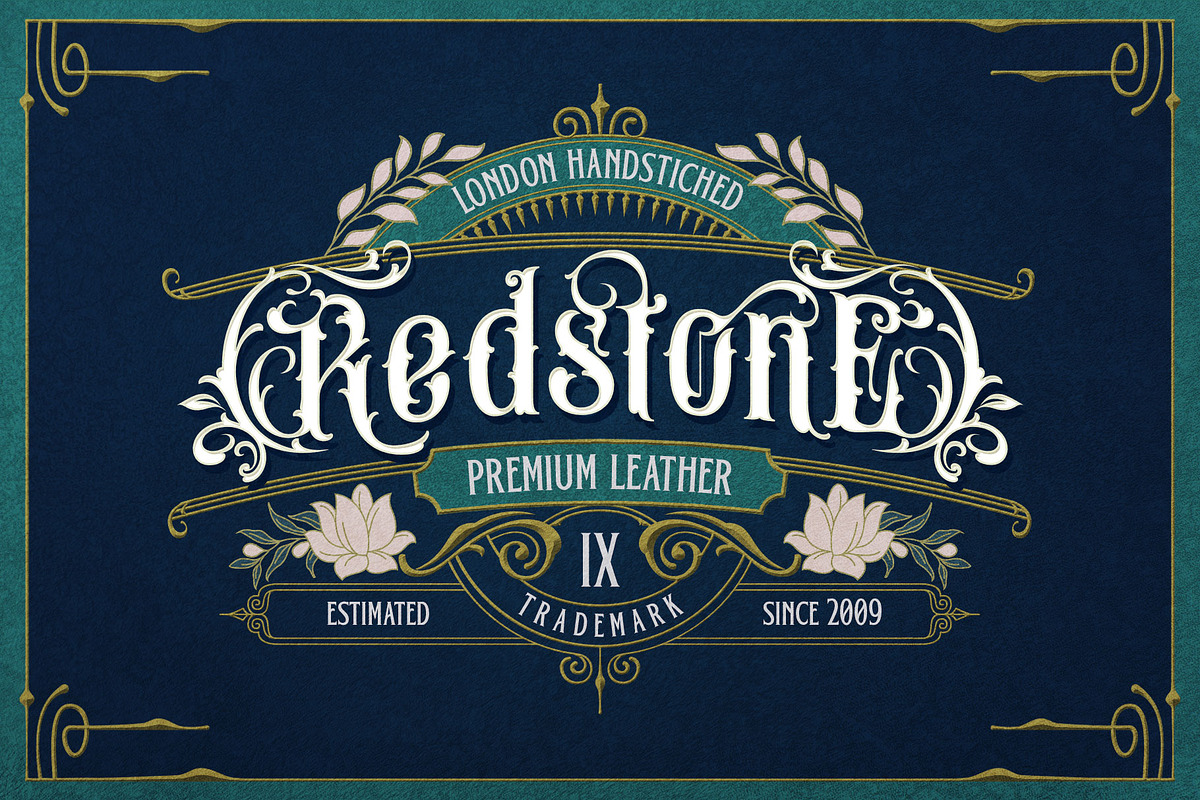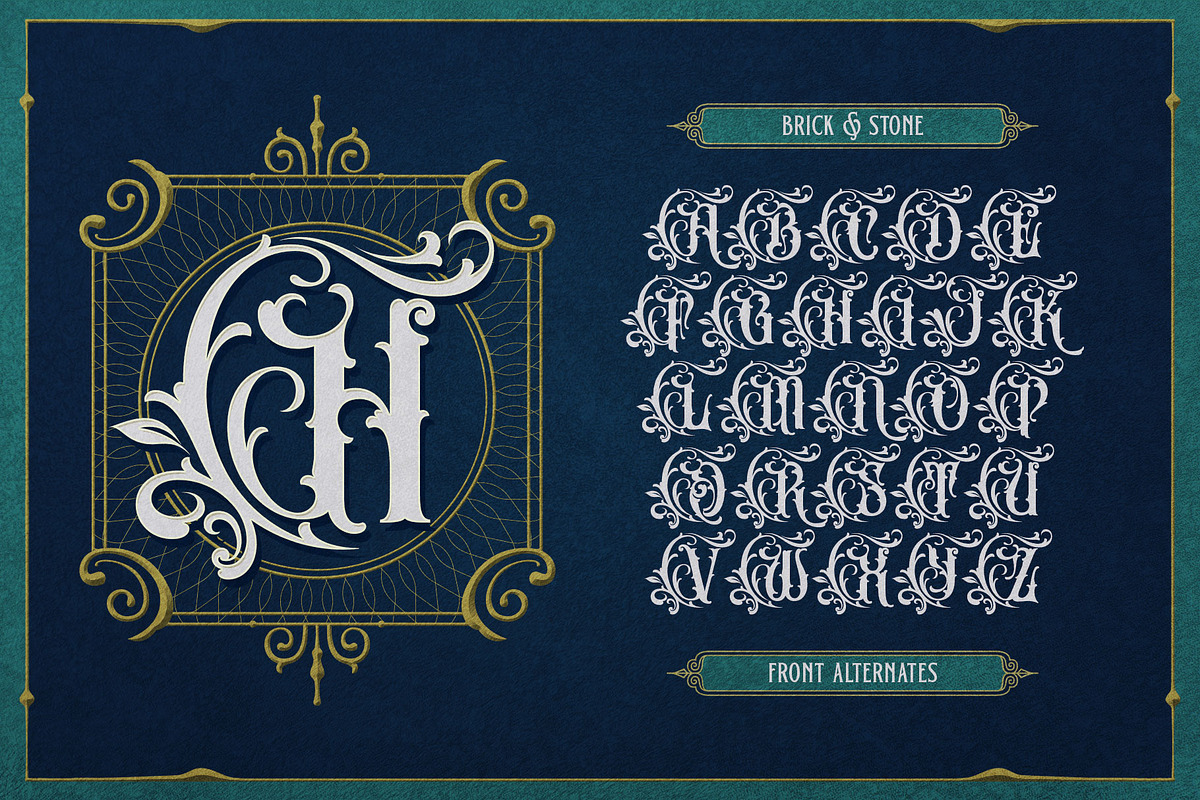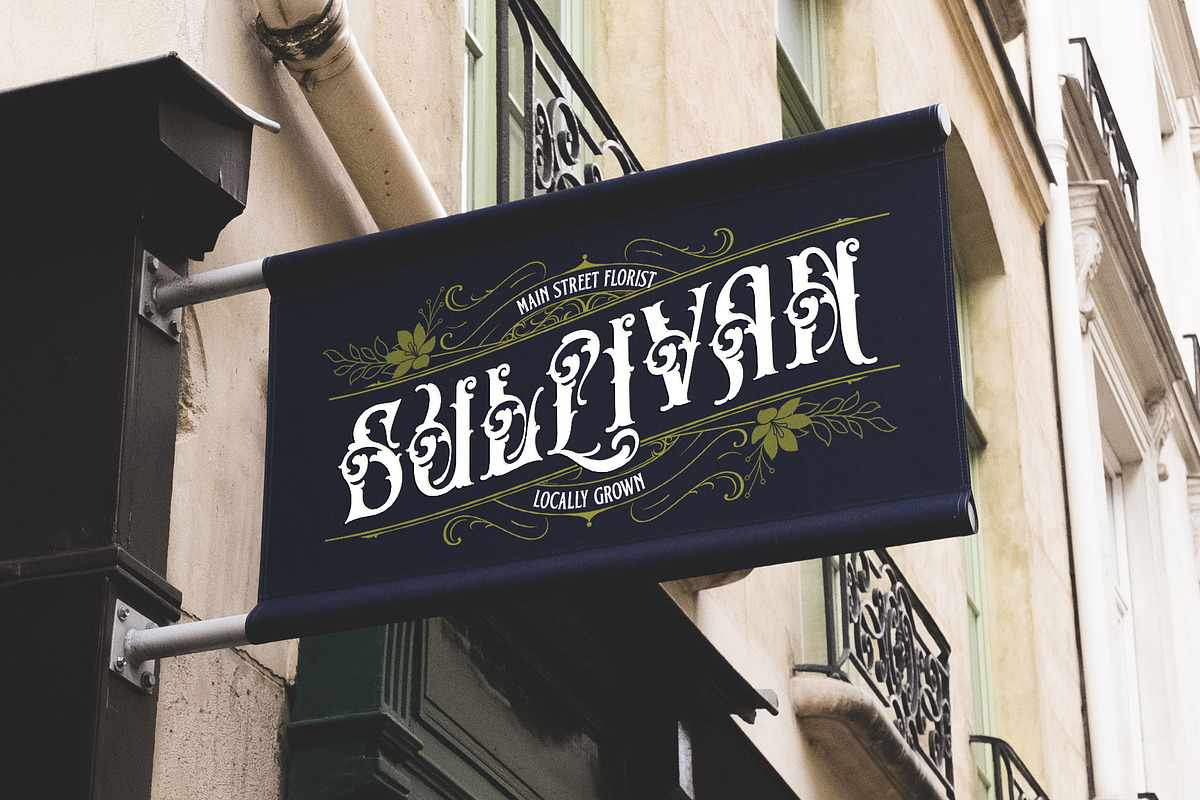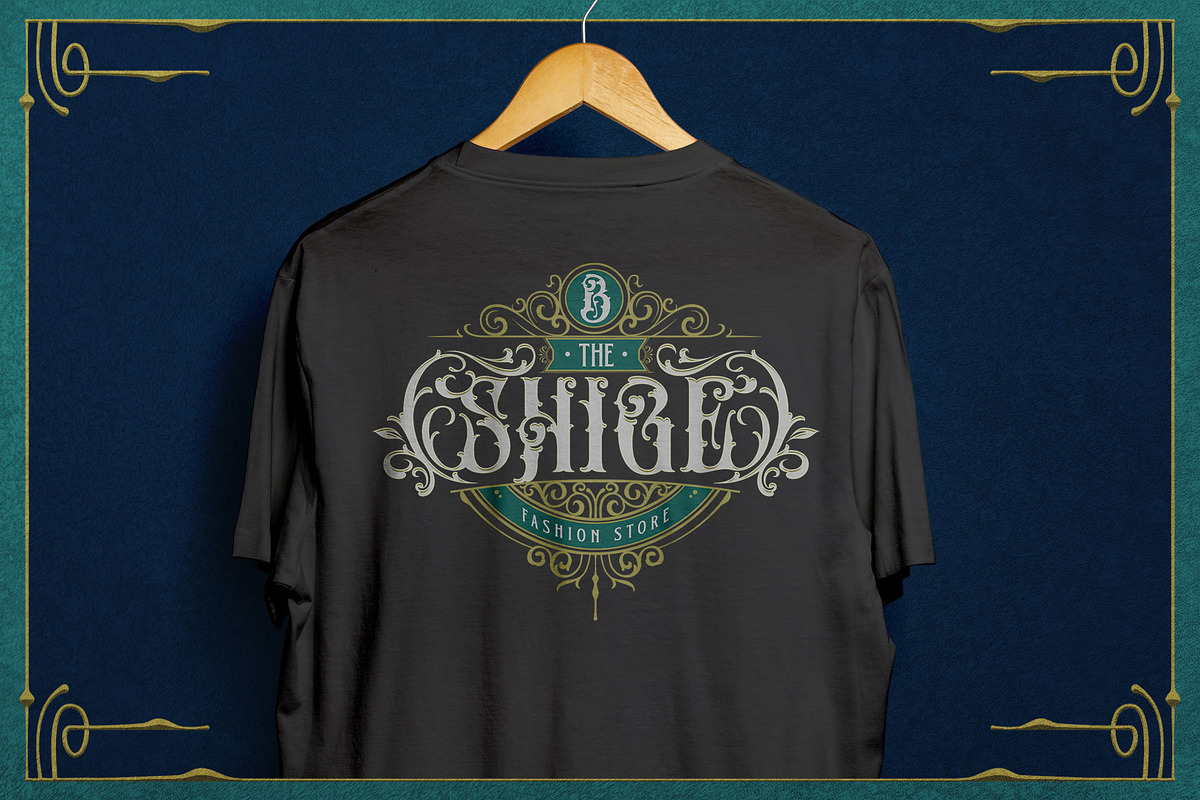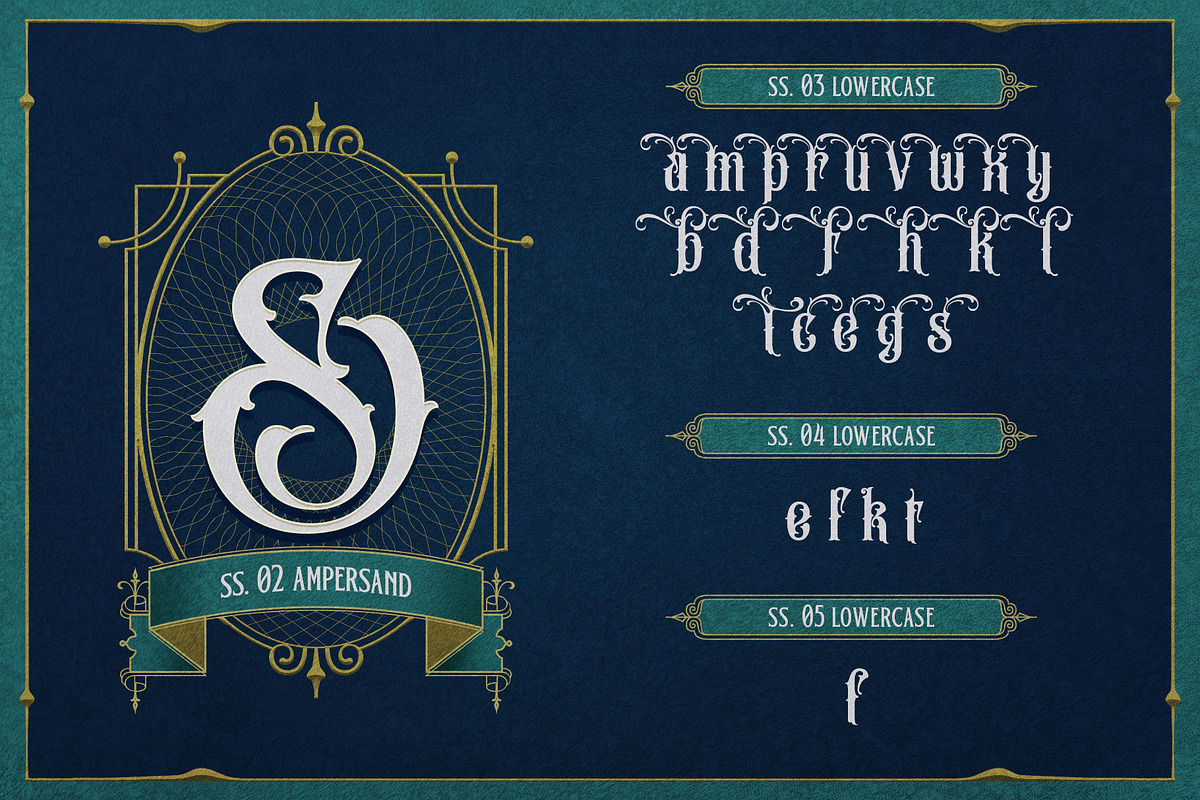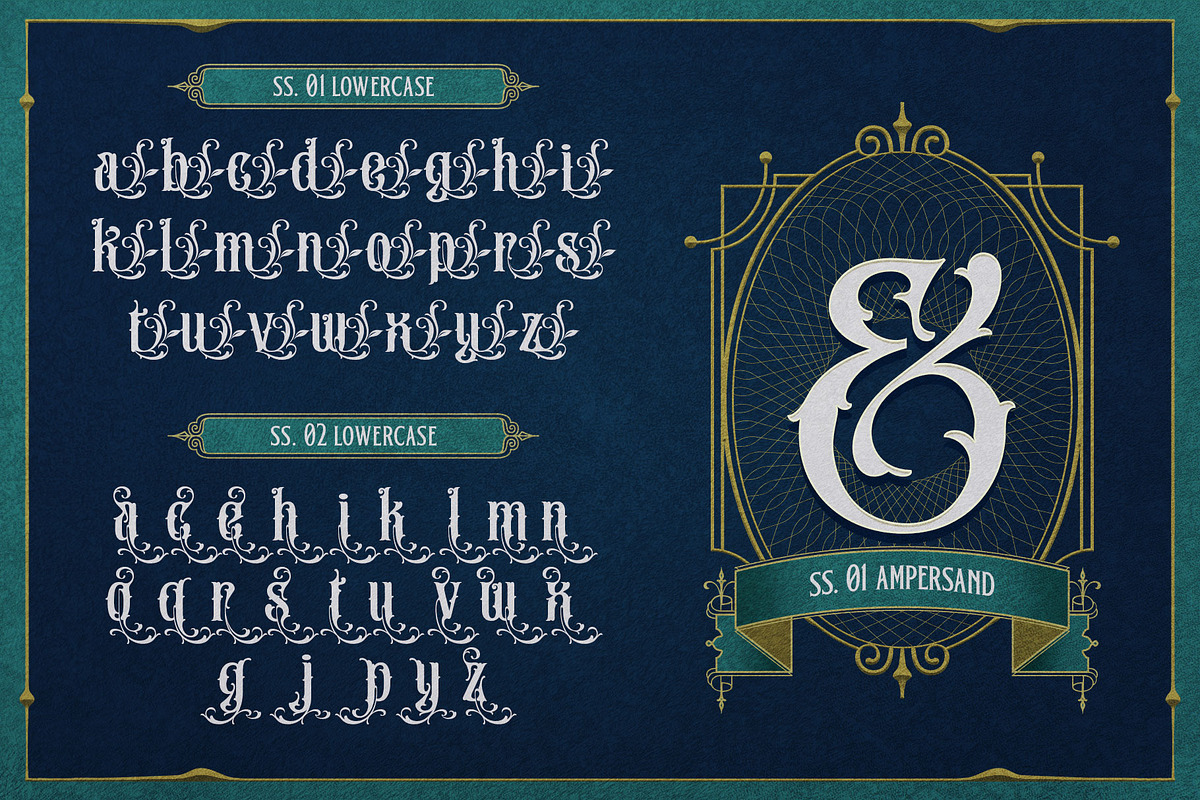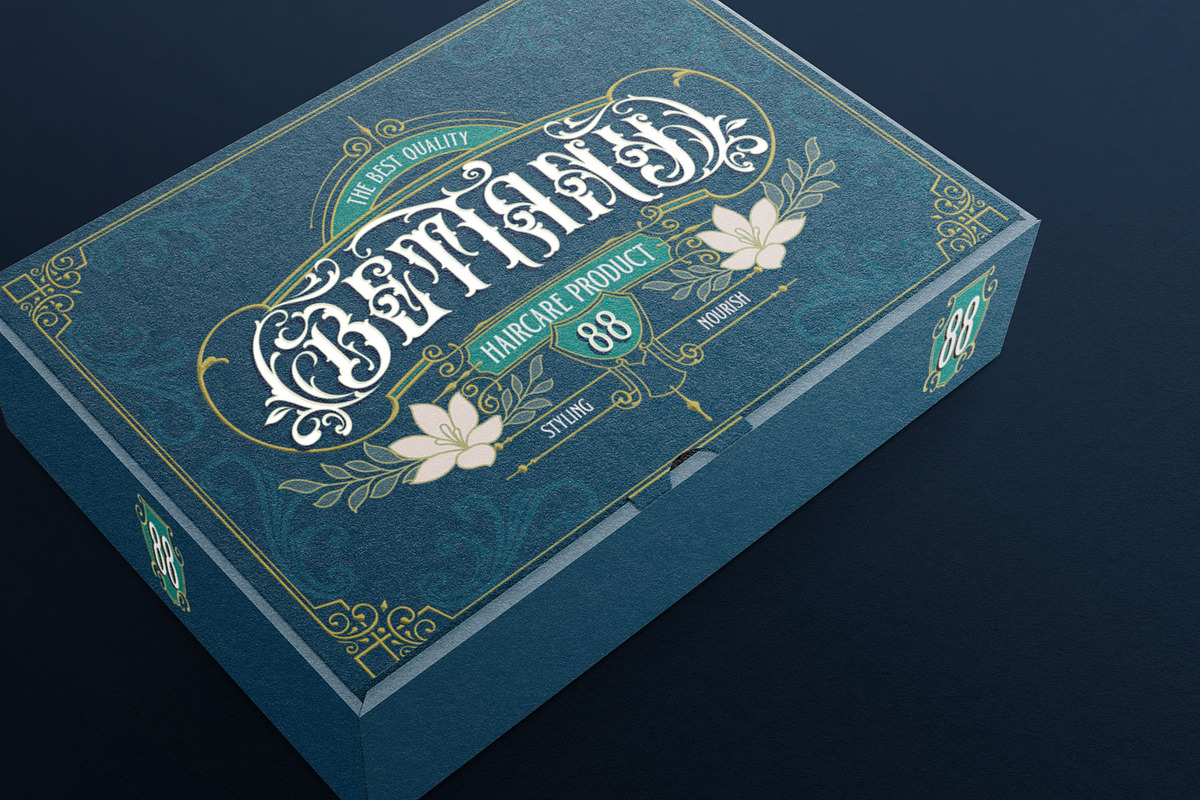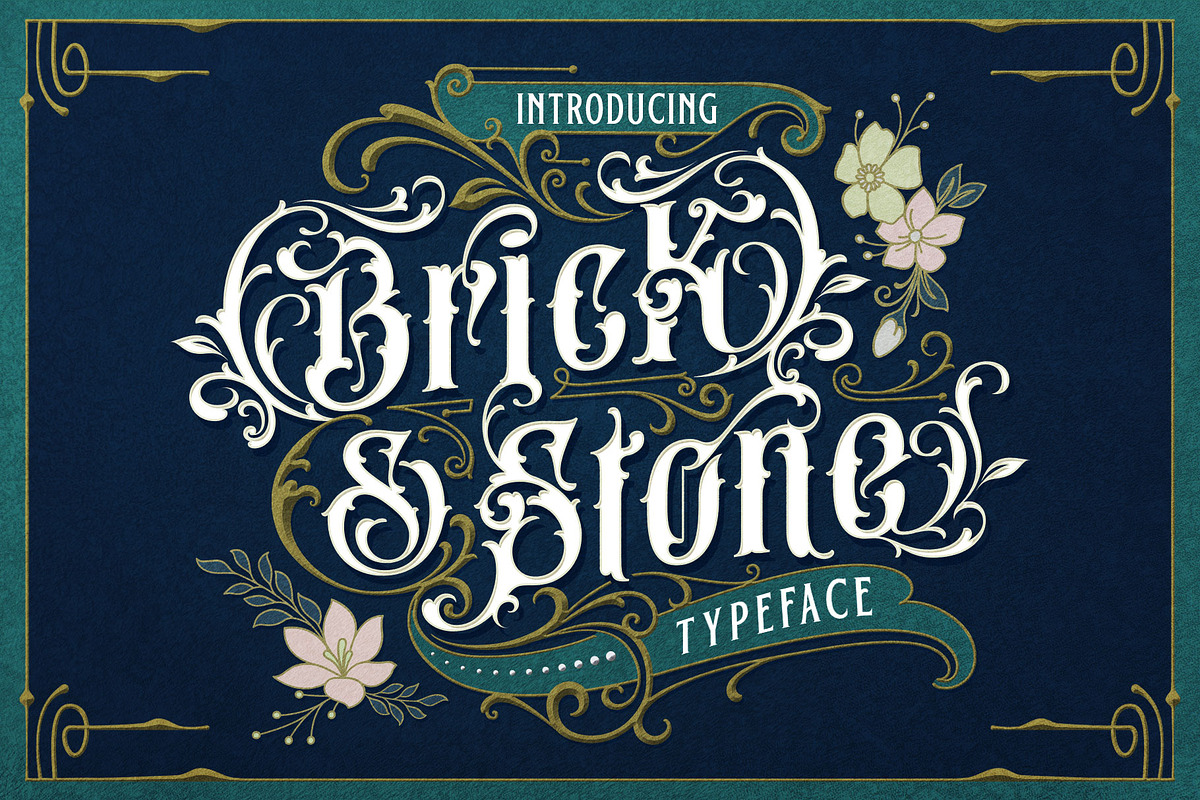
Brick Stone Victorian Typeface
Introducing the "Brick and Stone Victorian Typeface" – a timeless and elegant font that beautifully captures the essence of the Victorian era. This exquisite typeface is a masterful blend of intricate craftsmanship, vintage charm, and artistic flair, making it the perfect choice for designers, typographers, and creatives seeking to evoke a sense of classic refinement and sophistication in their projects.
The Brick and Stone Victorian Typeface boasts a rich repertoire of design elements that truly set it apart. With meticulously crafted ornaments, graceful swashes, captivating ligatures, and versatile alternates, this font provides an extensive toolkit to elevate any typographic endeavor. Whether you're working on invitations, branding, packaging, signage, or any other creative pursuit, this typeface lends an air of prestige and distinction to your work.
Each character of this Victorian typeface has been thoughtfully created to reflect the ornate and elegant aesthetics of the 19th century. The font captures the essence of engraved stone and brickwork, giving your text an authentic vintage touch. The ornamental details add an extra layer of opulence, making every word feel like a work of art.
As a bonus, we're delighted to include a collection of meticulously crafted ornament and flower vectors. These beautifully designed elements perfectly complement the font and open up a world of possibilities for creating stunning embellishments and decorative accents to further enhance your designs.
Whether you're designing for weddings, formal events, historical projects, or simply seeking to add a touch of classic sophistication to your work, the Brick and Stone Victorian Typeface will exceed your expectations. Embrace the elegance of the past and unlock a world of creative potential with this remarkable font.